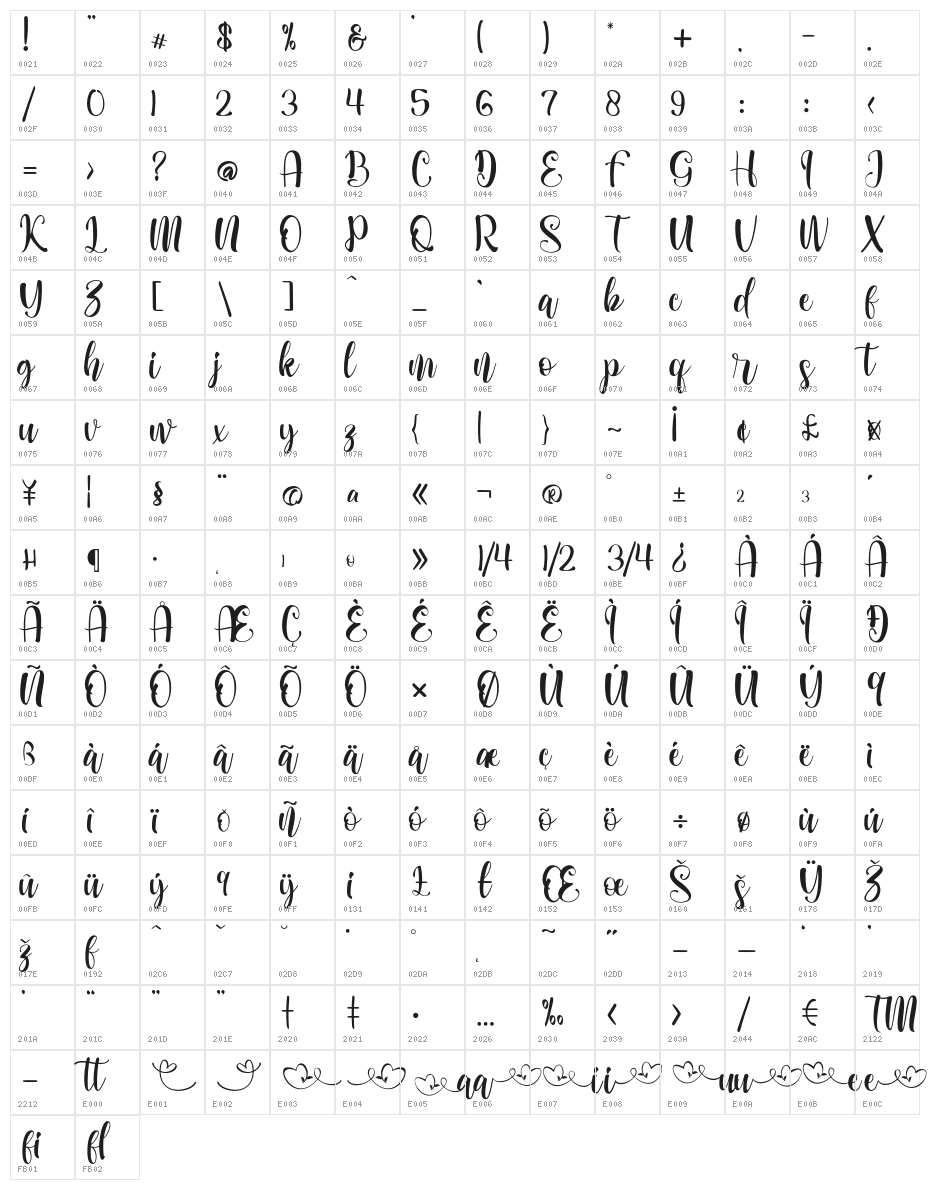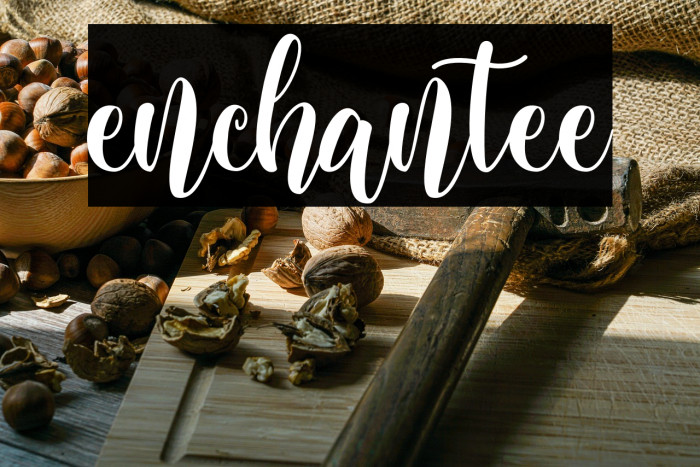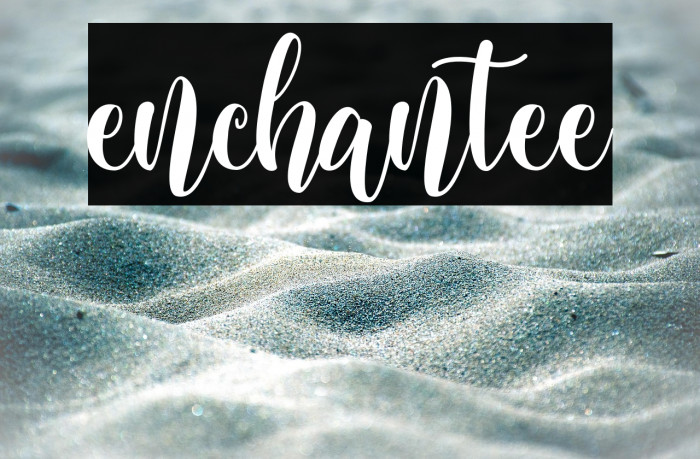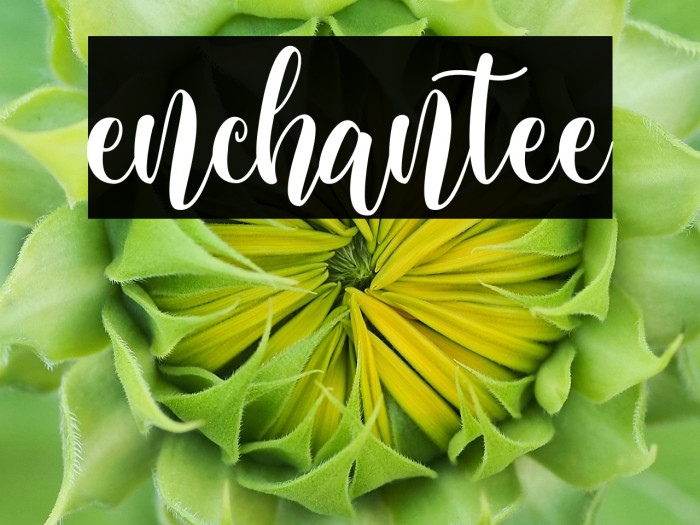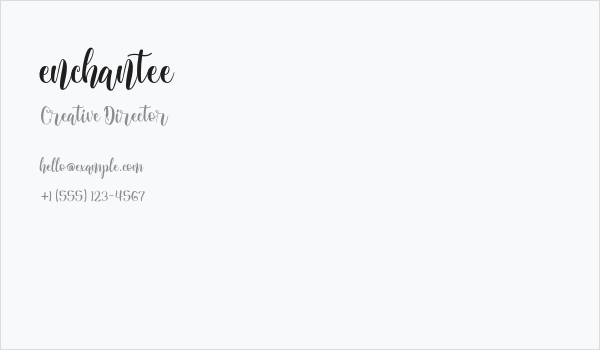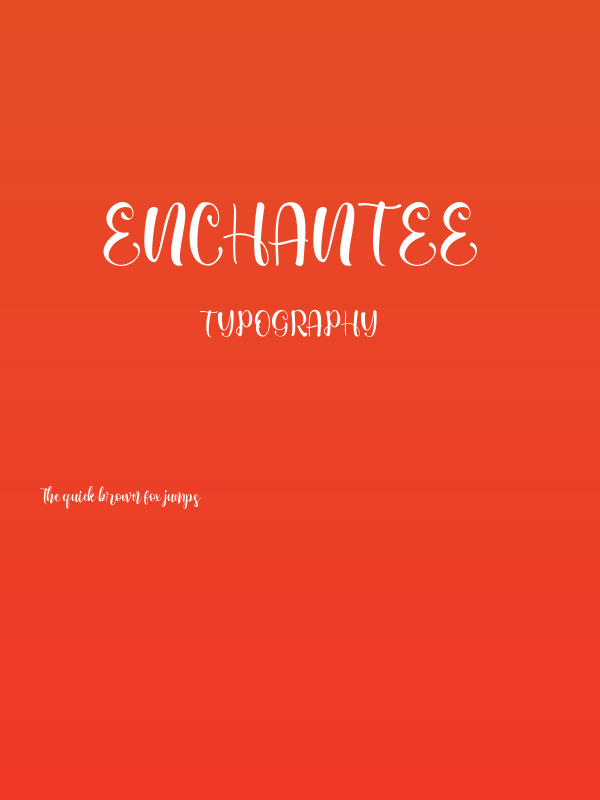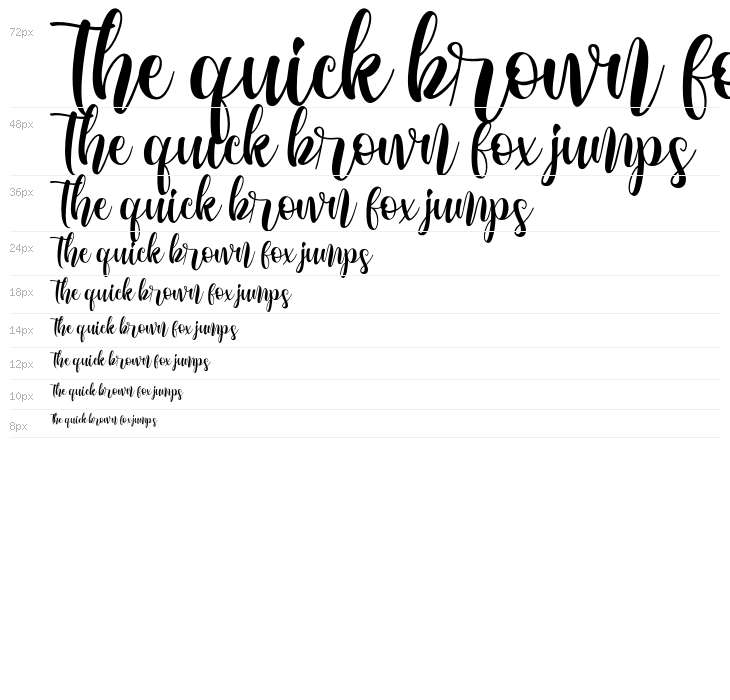
enchantee Font
enchantee Description
This font features a lively and elegant script style with a flowing, cursive design. The characters are interconnected, giving a sense of continuity and fluidity. The uppercase letters are bold and expressive, with intricate loops and swirls that add a decorative touch. The lowercase letters maintain a consistent style, with smooth curves and a slightly playful appearance. The numbers are equally stylized, matching the overall aesthetic of the alphabet. Special characters are designed with the same attention to detail, ensuring a cohesive look throughout. This font exudes a sense of sophistication and charm, making it ideal for projects that require a personal and artistic touch.